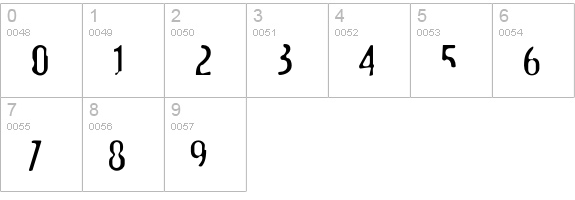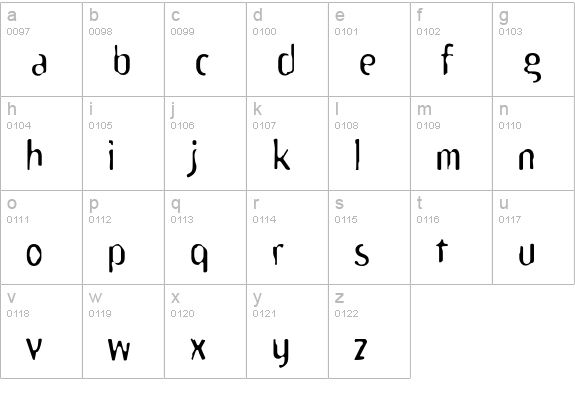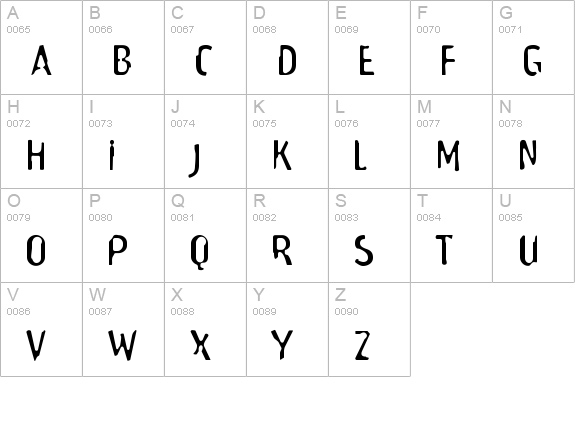
AmoebiaRain Font Details
The AmoebiaRain font is a whimsical and playful typeface that exudes a sense of fluidity and movement. Inspired by the shape and texture of amoebas, this font is perfect for adding a touch of creativity and fun to your designs. Its organic and irregular letterforms give it a unique and eye-catching look that will make your projects stand out. What's even better is that the AmoebiaRain font is available for free download at FontsMarket.com. So whether you're working on a poster, logo, or social media graphic, this font is sure to bring a touch of personality and charm to your work. Add a splash of creativity to your designs with the AmoebiaRain font today!